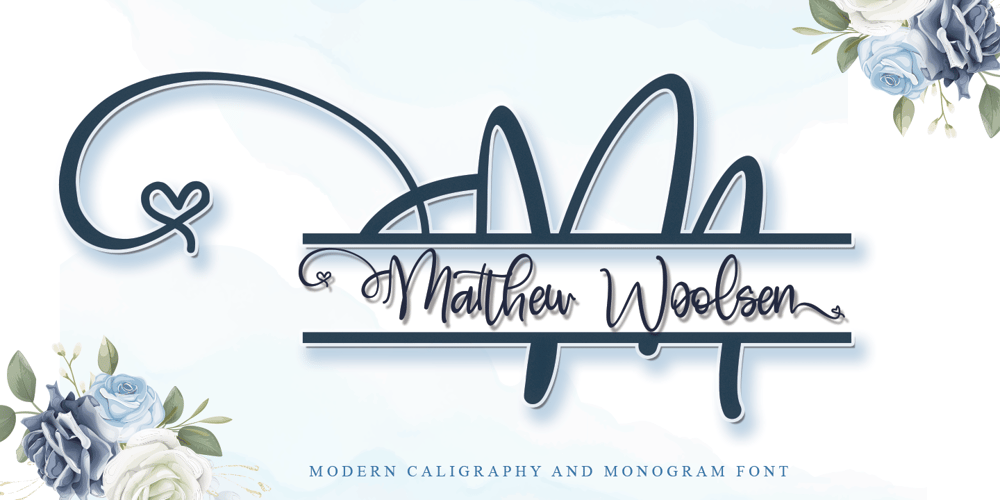
Matthew Woolsen Font Family was designed by Thomas Aradea and published by Letterara. Matthew Woolsen contains 2 styles and family package options. Matthew Woolsen is a sweet, soft hand-lettered font and monogram. Fall in love with its authentic feel and use it to create gorgeous wedding invitations, beautiful stationary art, eye-catching social media posts, Logo, Brand, and cute greeting cards. This display font is the perfect choice for making original and outstanding designs.